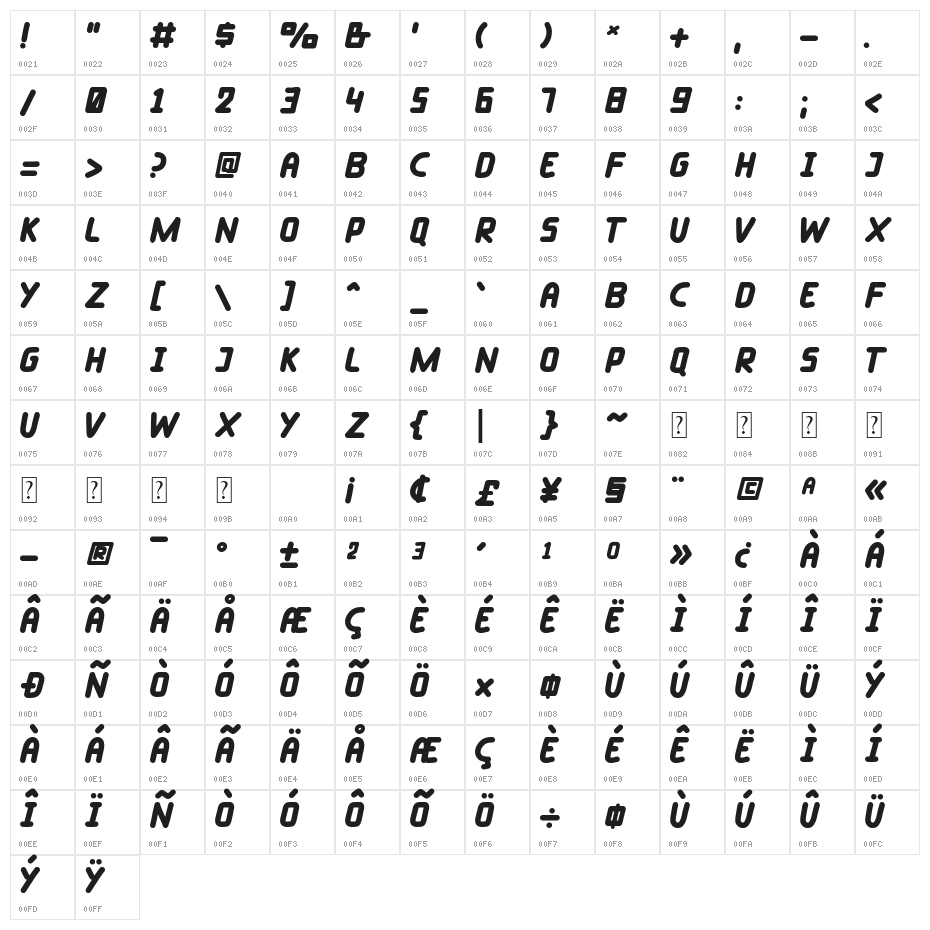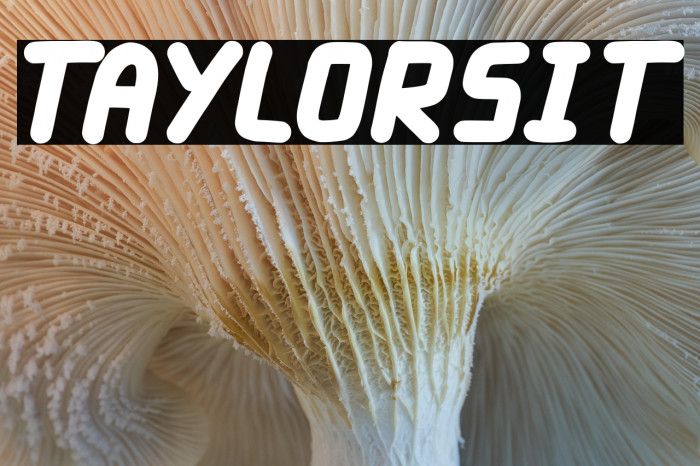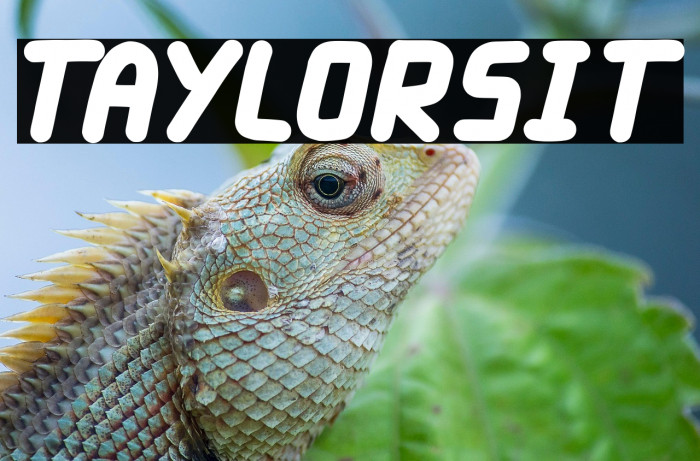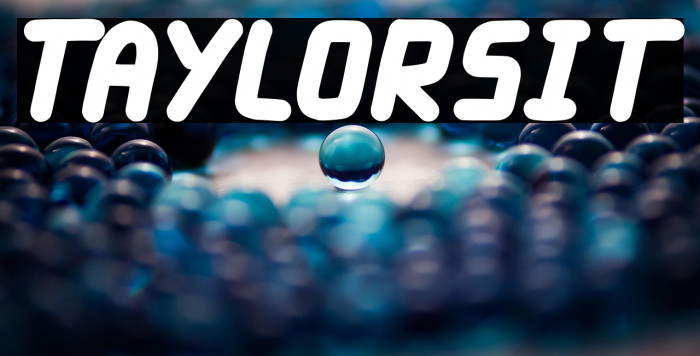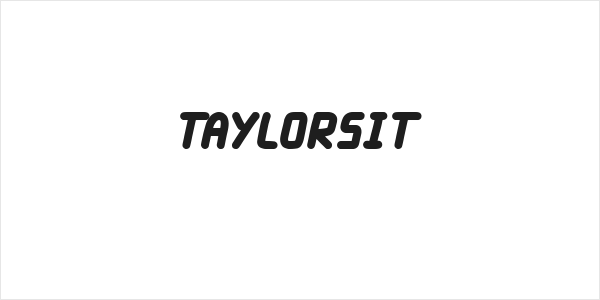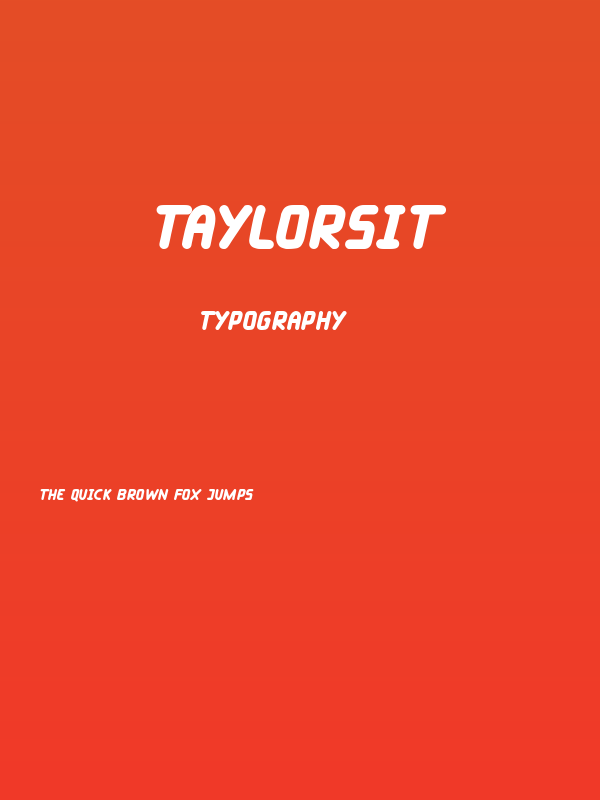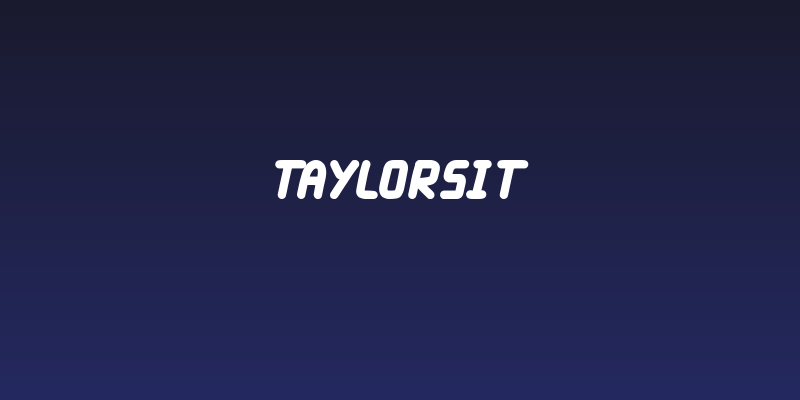
Taylorsit Font
Taylorsit Description
This font features a bold, rounded style with a slight slant, giving it a dynamic and modern appearance. The characters are uniformly thick, contributing to a strong visual impact. The rounded edges soften the overall look, making it approachable and friendly. The uppercase and lowercase letters maintain a consistent style, with the lowercase mirroring the uppercase in form and weight. The numbers are equally bold and rounded, ensuring readability and consistency across different uses. Special characters are designed to match the overall aesthetic, with the same boldness and rounded edges. This font's design is ideal for projects that require a modern, energetic feel.
| Proposed Projects | Ideal for branding, advertising, headlines, and any project needing a modern, bold aesthetic. |